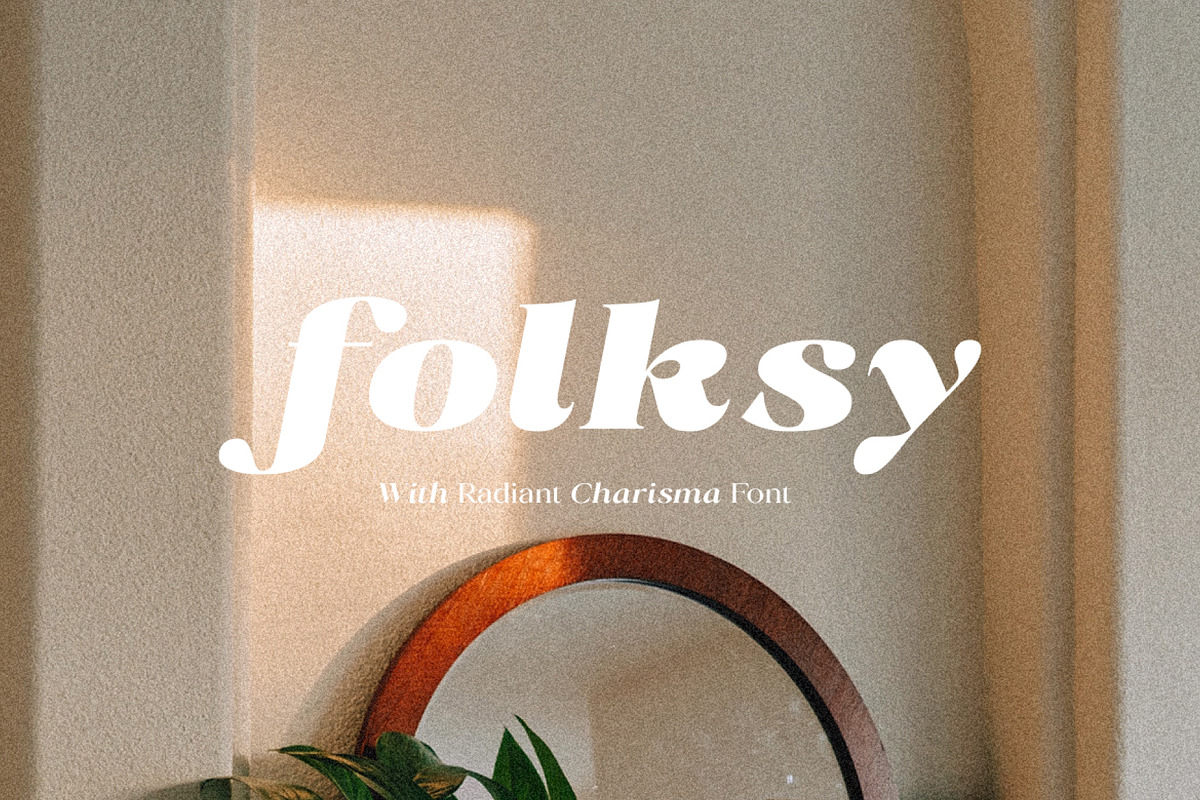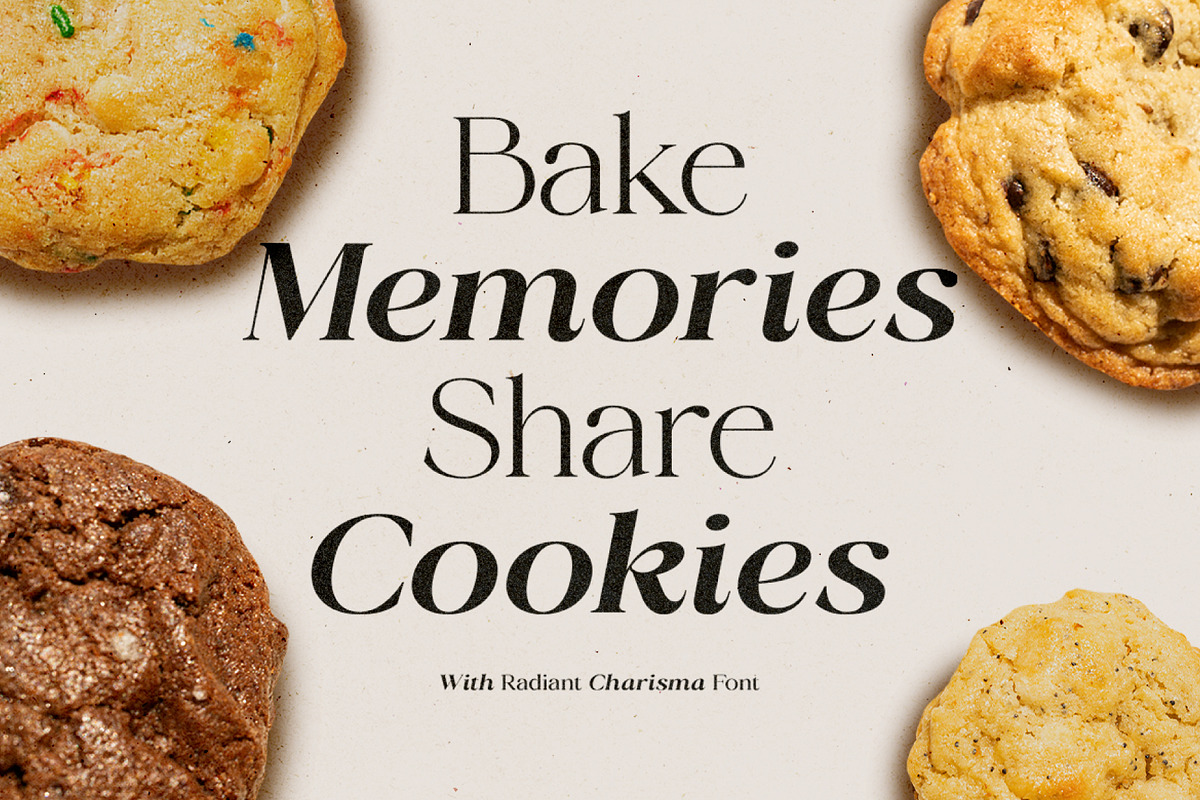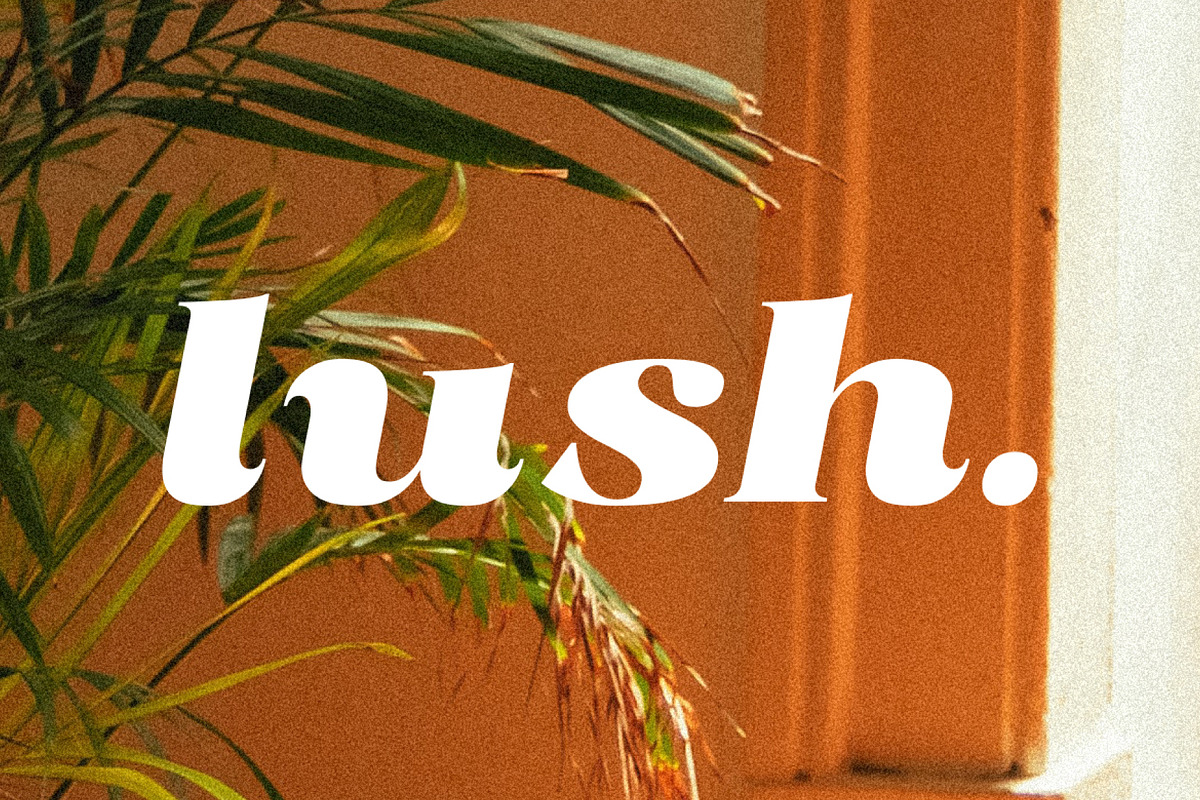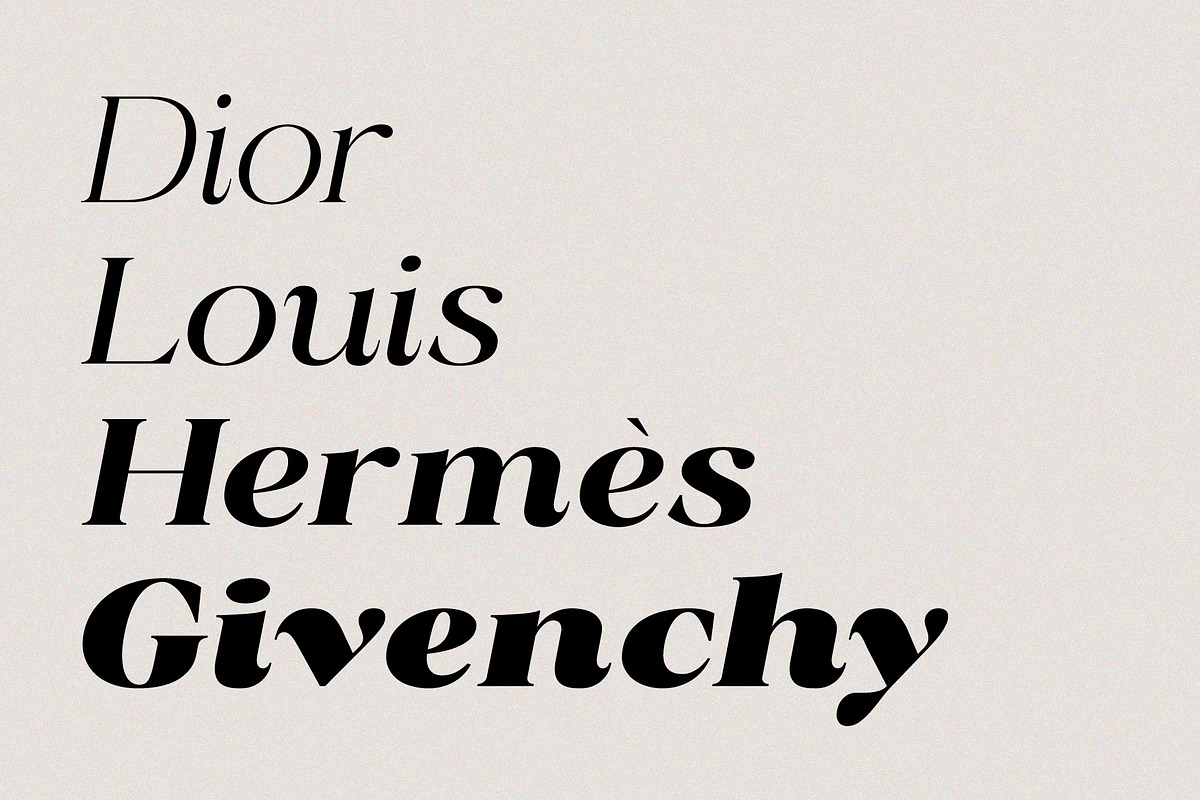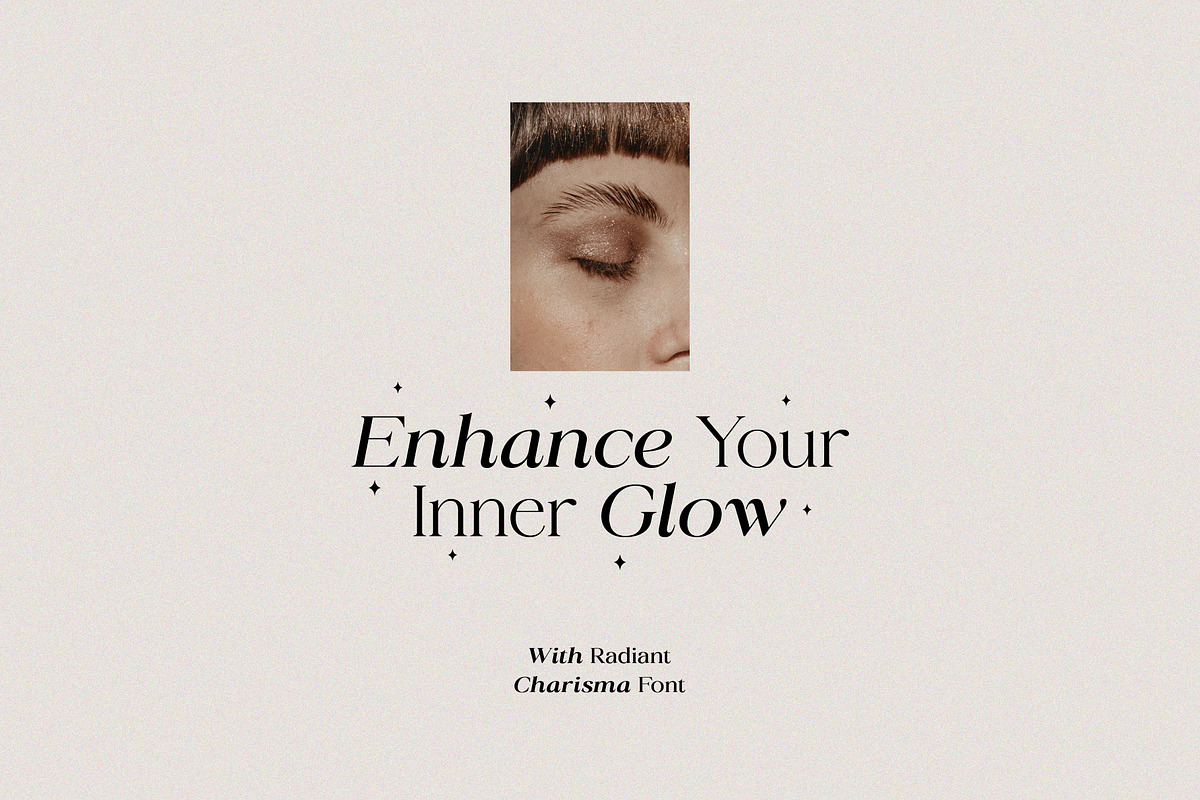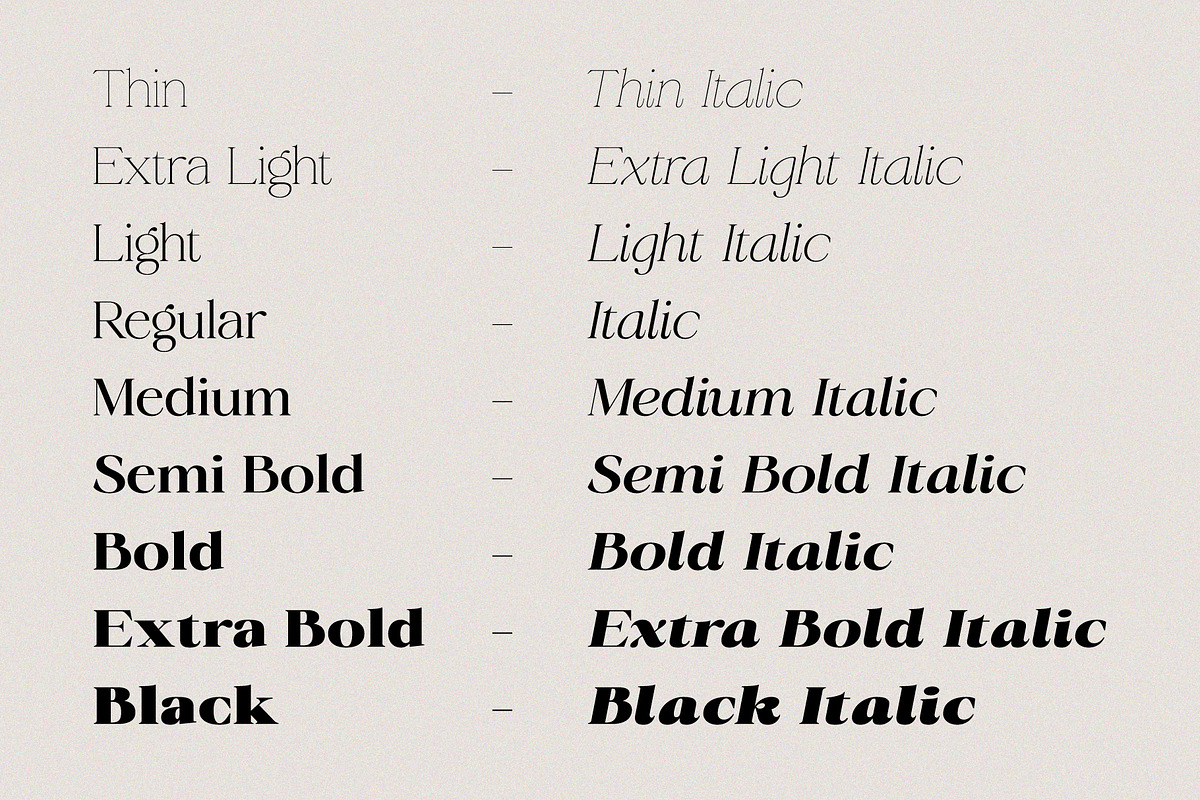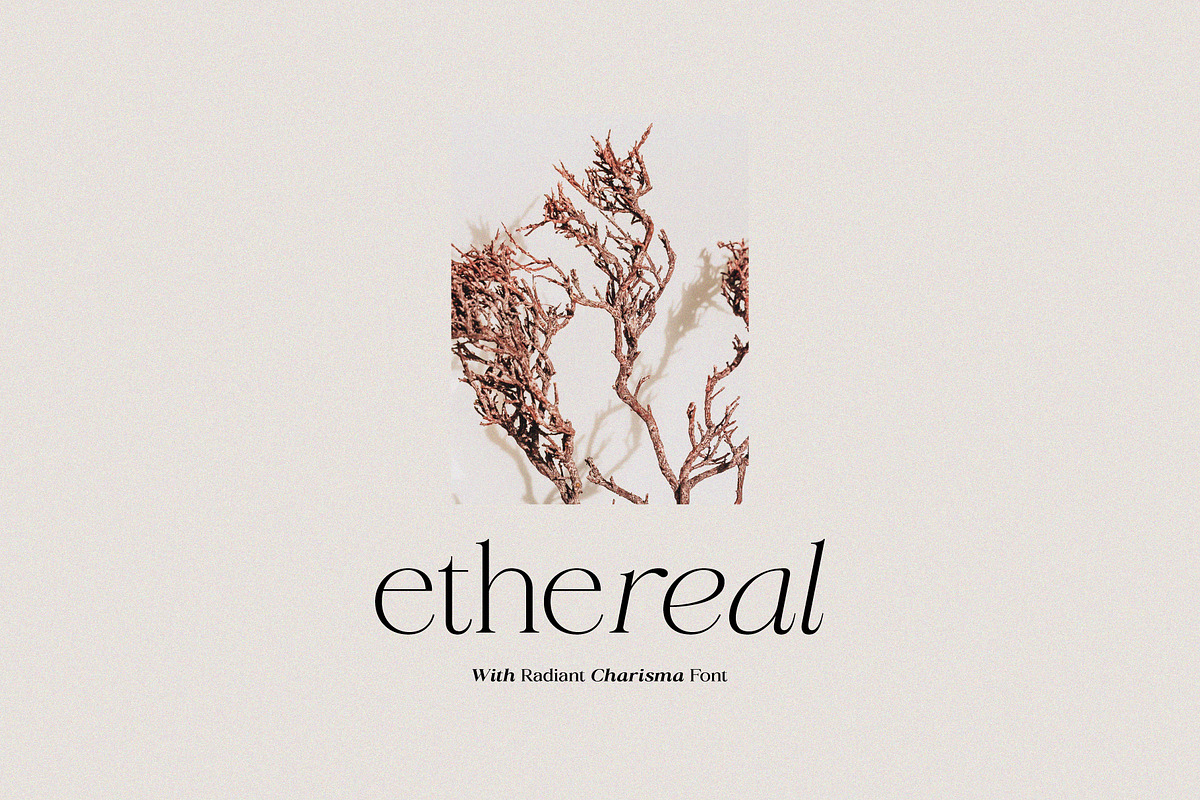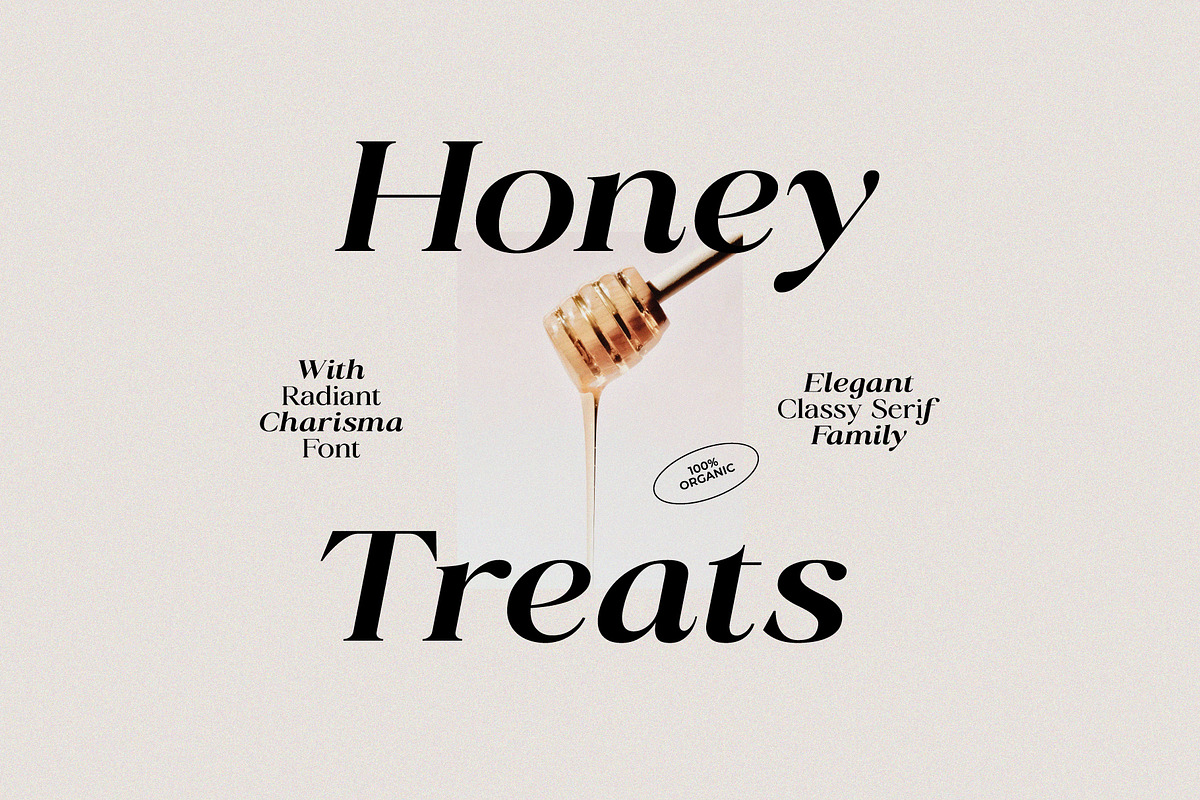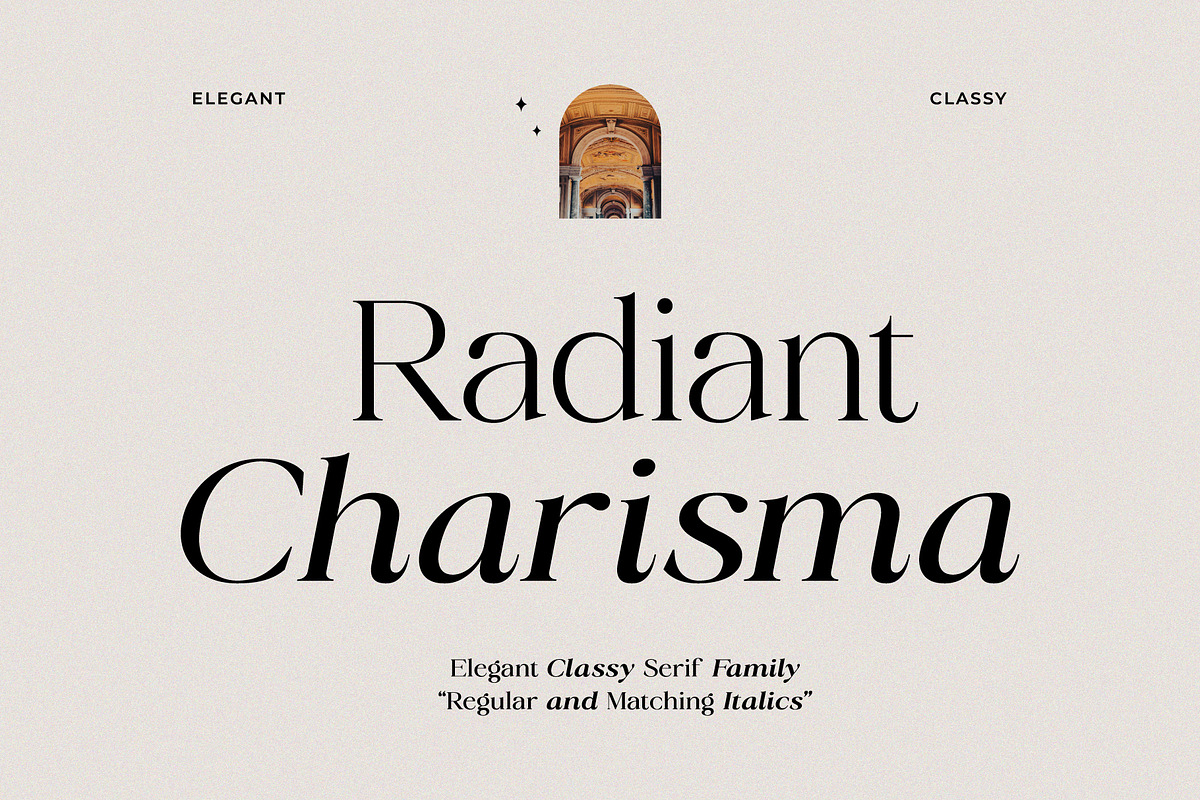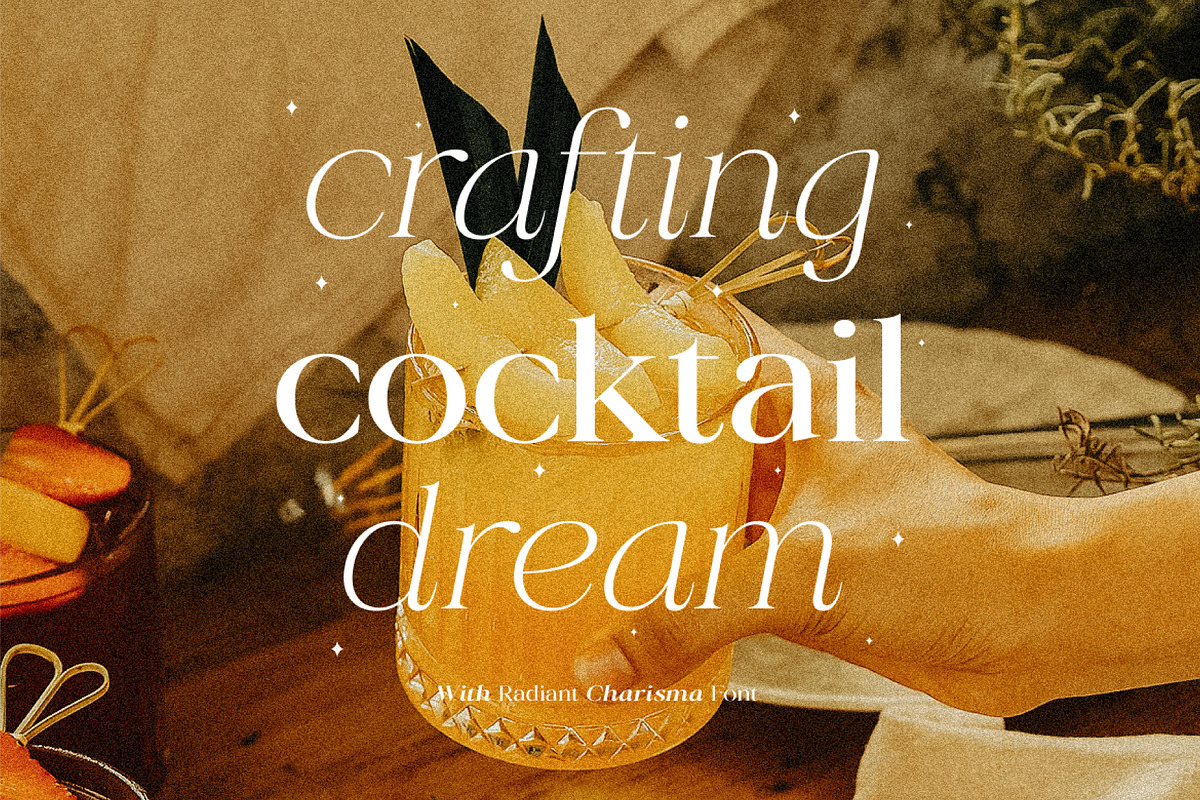
Radiant Charisma - Serif Family
Radiant Charisma - Elegant Classy Serif Family
Radiant Charisma is an elegant and classy serif font. With 18 regular weights & matching italics. There are also static + variable files available. Suitable for branding, logo, title, poster and more design needs.
- Features: Uppercase, Lowercase, Numeral, Punctuation & Multilingual.